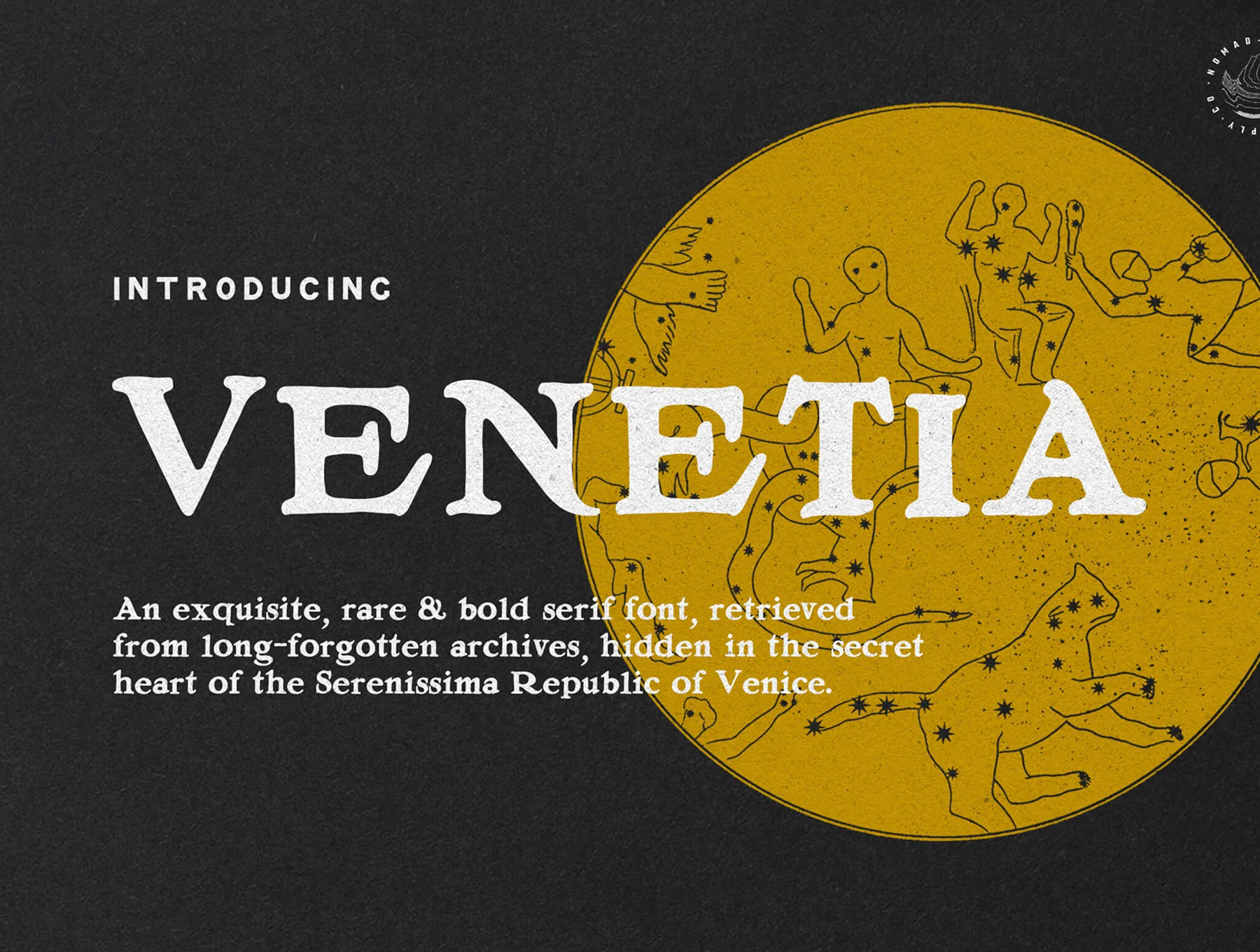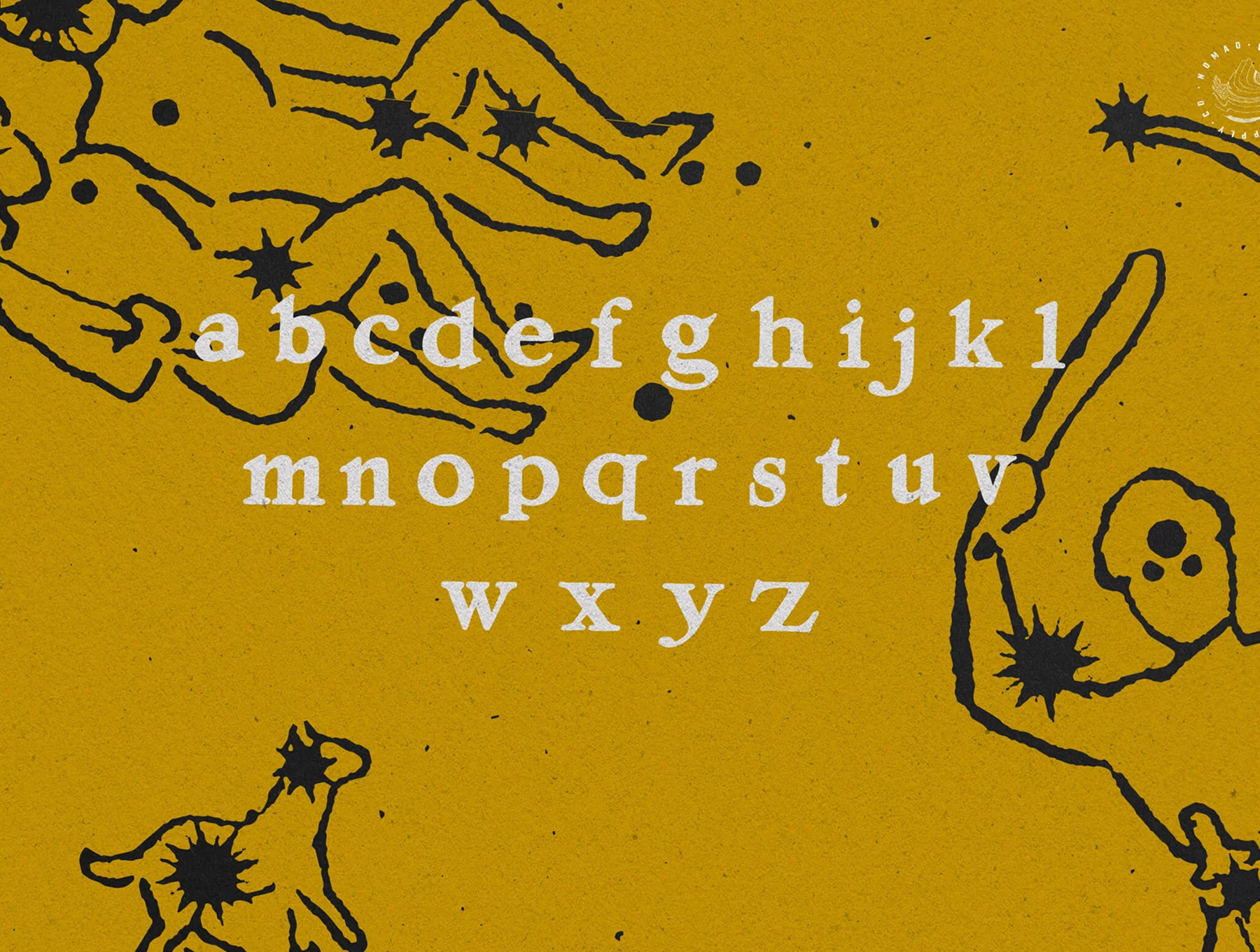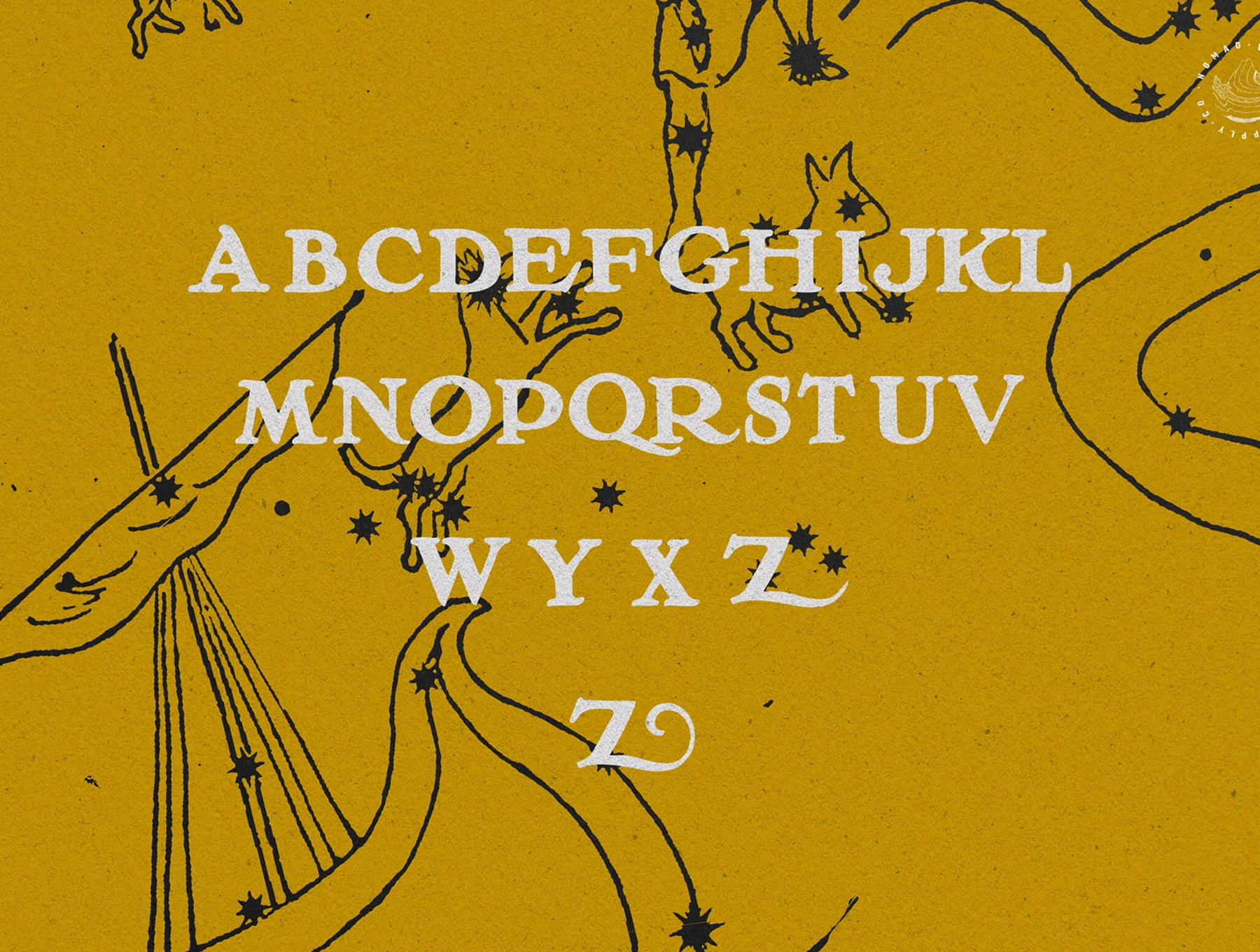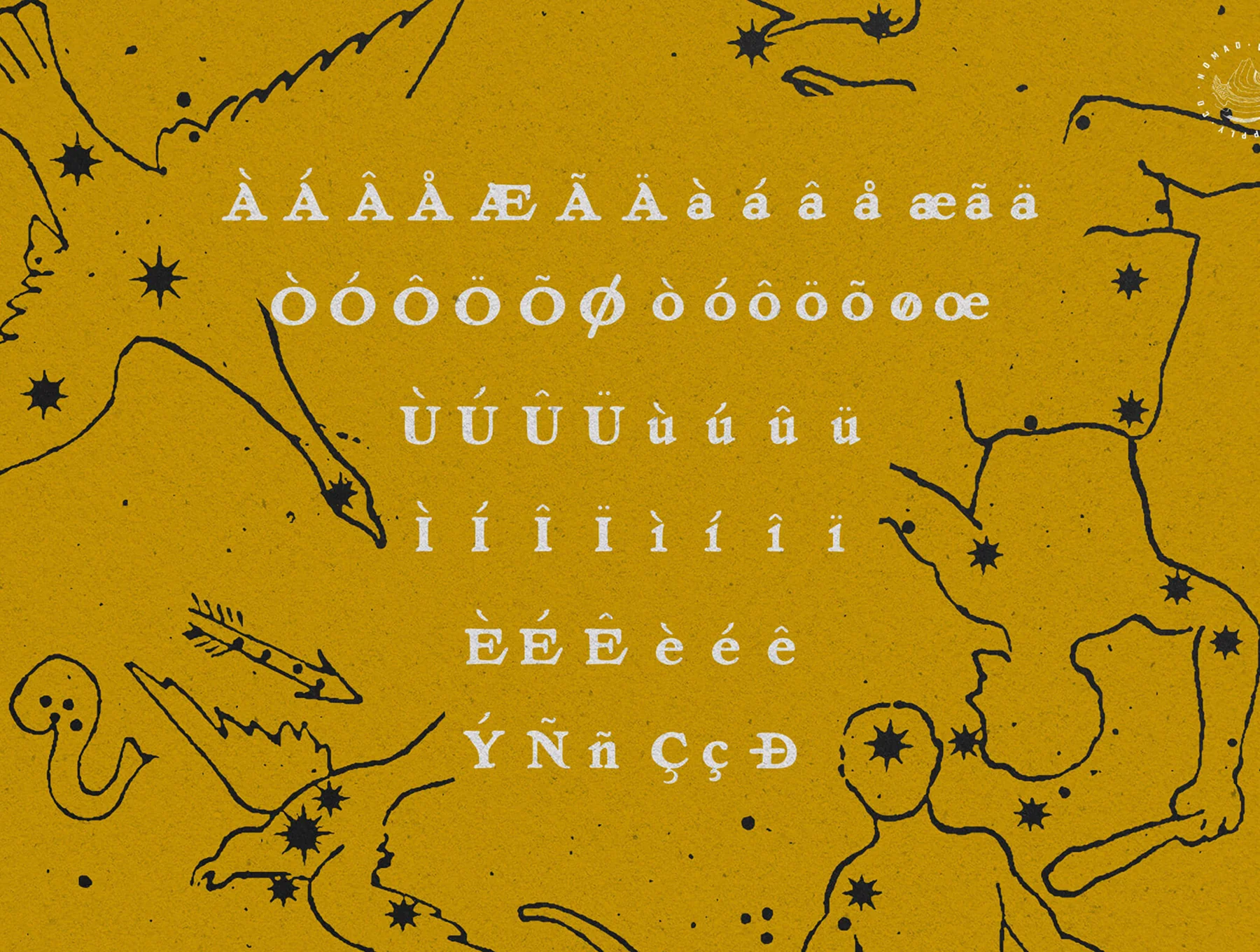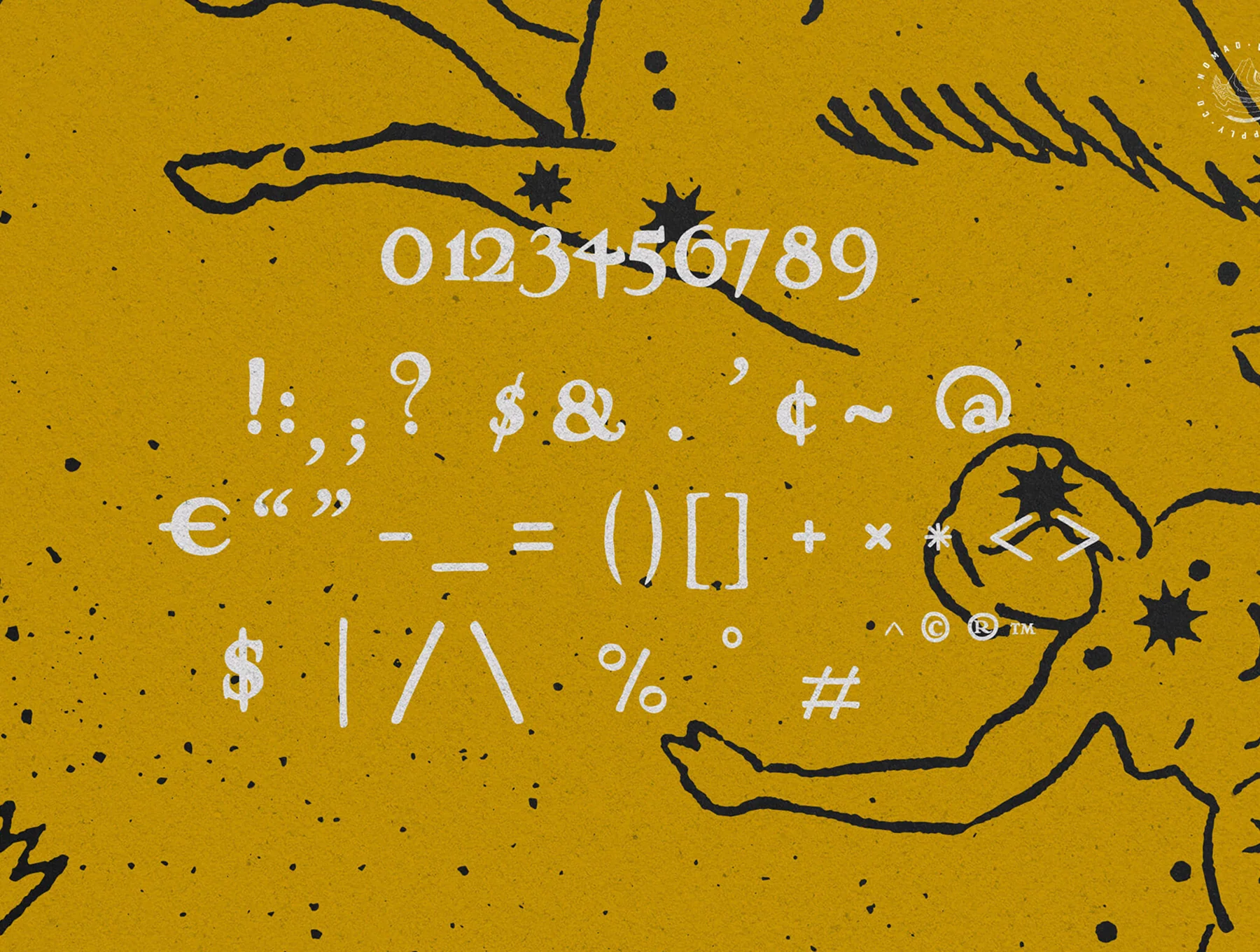
Venetia – Display Serif Font
An elegant display serif shaped by the allure and mystique of historic Venice.
Refined display serif with Venetian type influence
Includes capitals, small letters, numerals, and punctuation
Supports characters for multiple languages
Venetia is a display serif inspired by classic Venetian lettering. Strong forms and delicate details add timeless elegance and refinement to modern projects, making it ideal for logos, invitations, labels, and upscale brand identities.